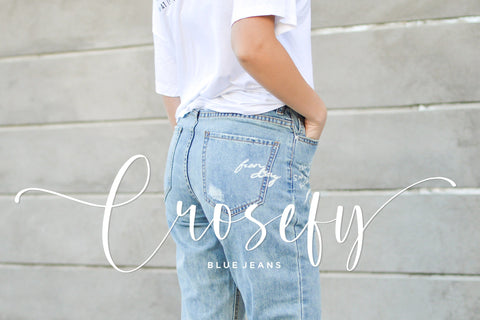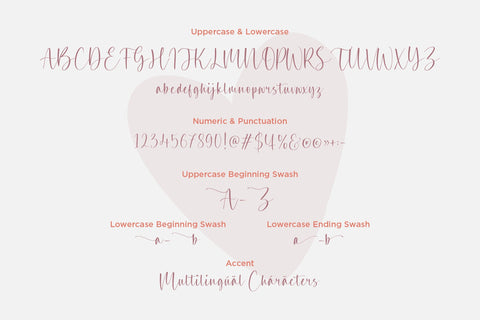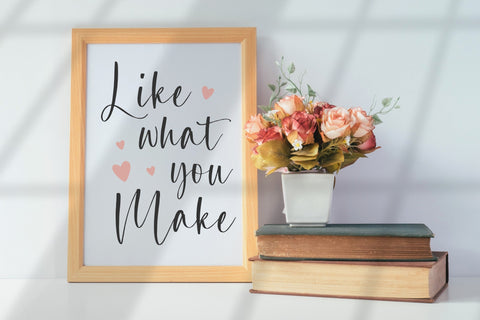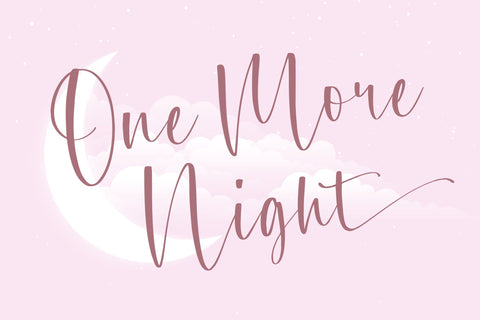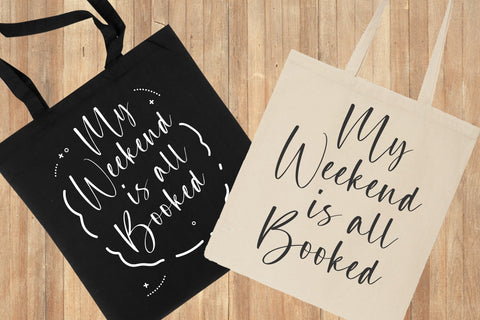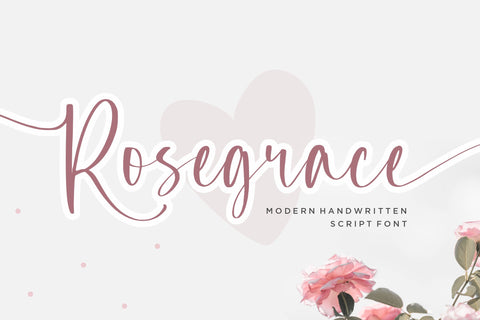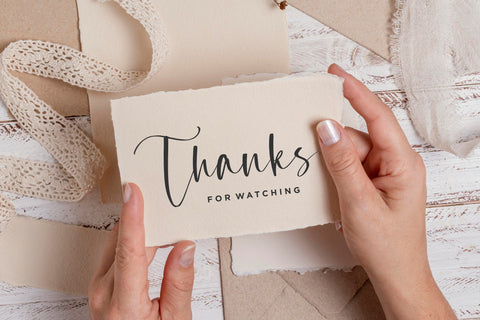
Rosegrace Modern Handwritten Script Font
Rosegrace is a Modern Handwritten Script Font.
Rosegrace feels equally charming and elegant. It looks stunning on wedding invitations, thank you cards, quotes, greeting cards, logos, business cards and every other design which needs a customized touch.
This font includes
- Uppercase Beginning Swash
- Lowercase Beginning & Ending Swash